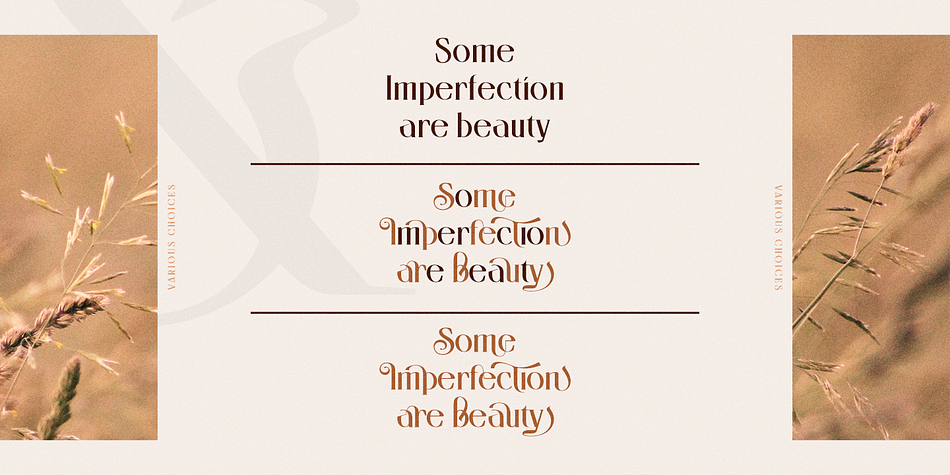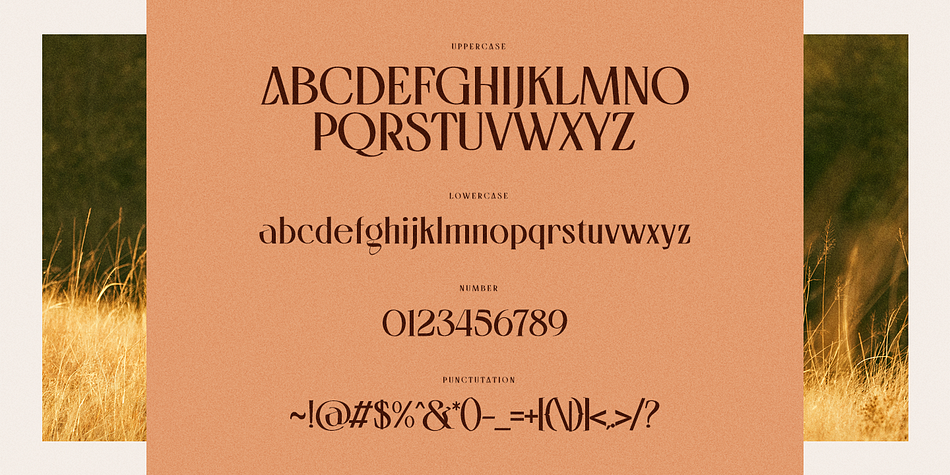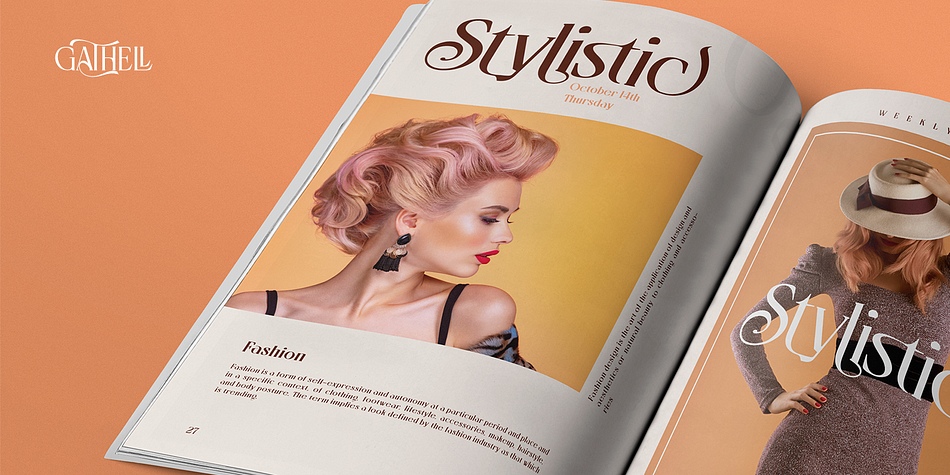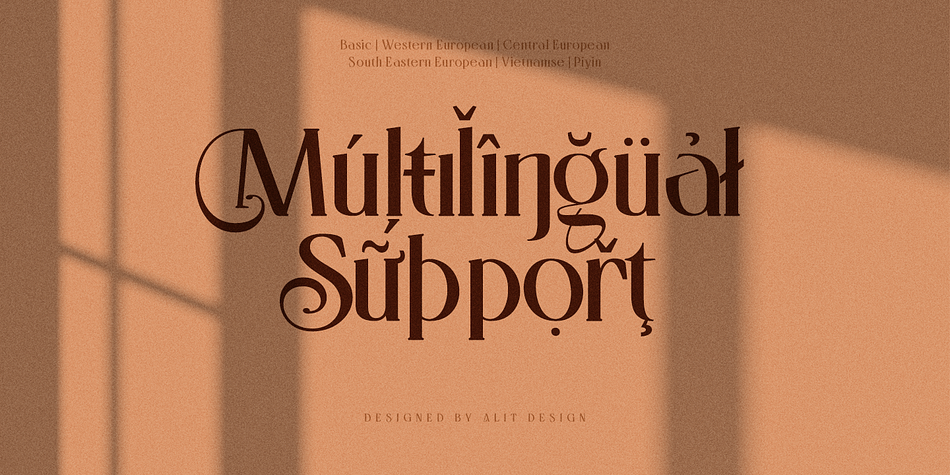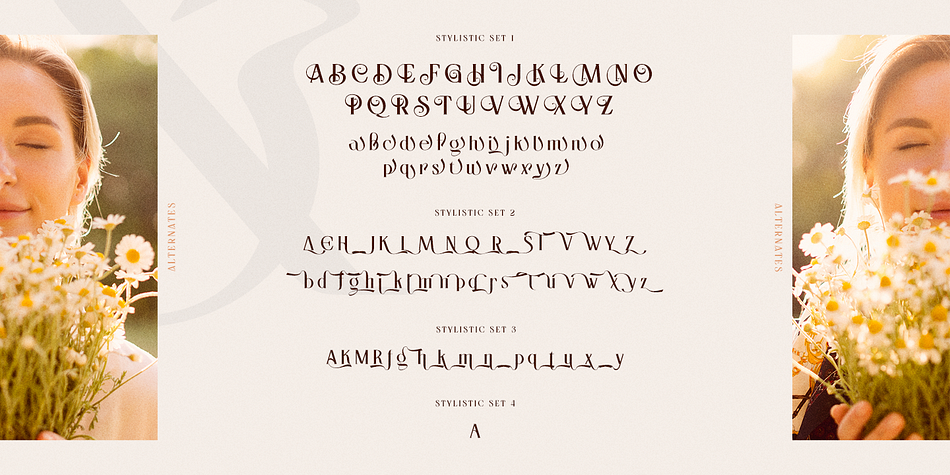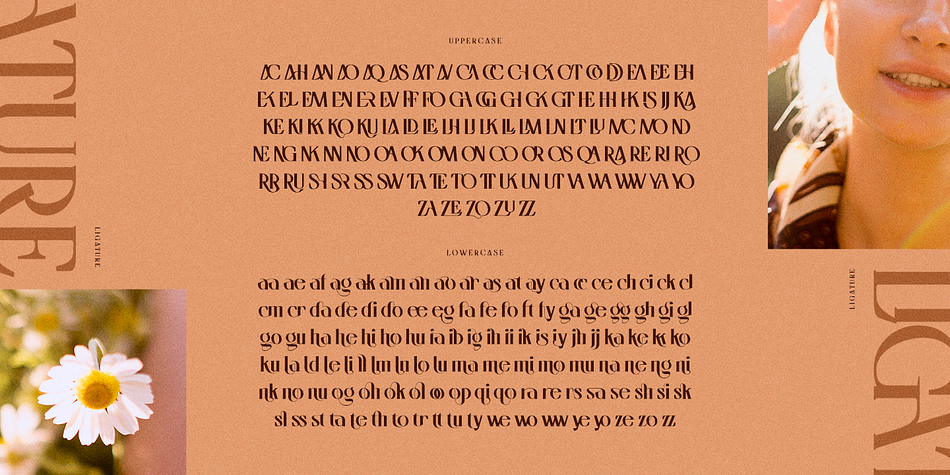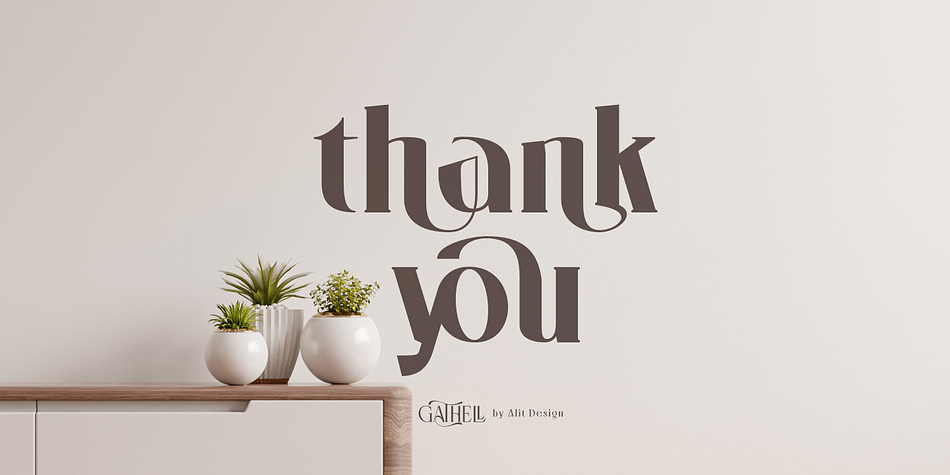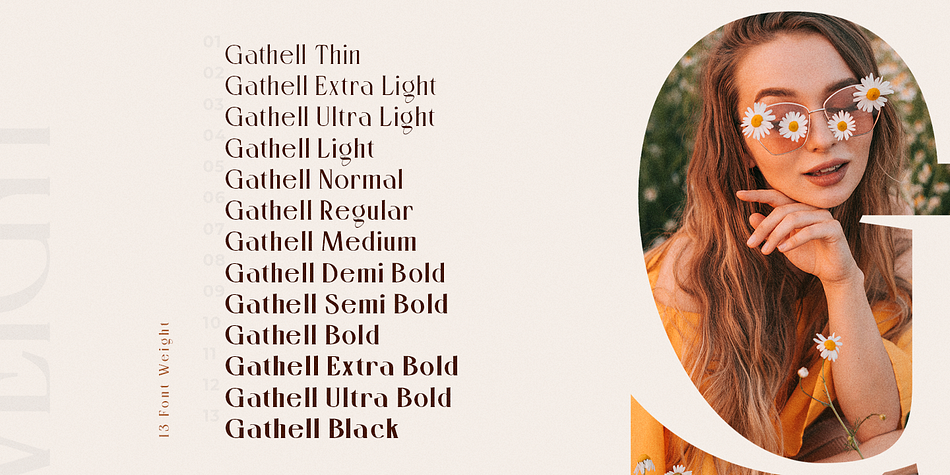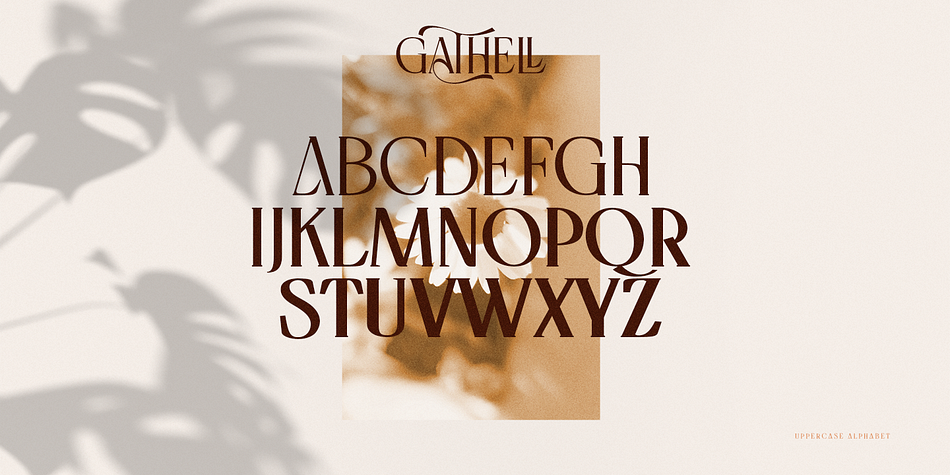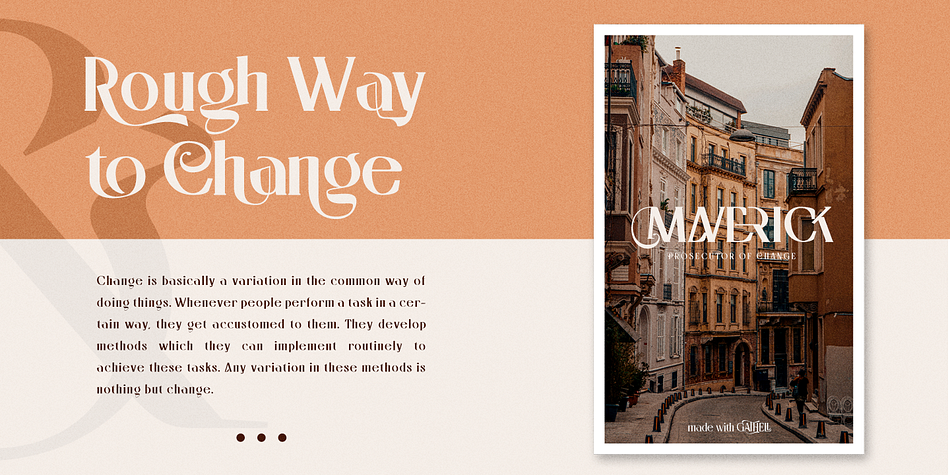
Designed by Alit Suarnegara, Gathell is a display serif font family. This typeface has thirteen styles and was published by Alit Design.
Introducing Gathell Typeface
GATHELL font family consists of 13 families, from Thin to Black style. The elegant modern font creates a unique design and is sure to steal the eye of the design target audience. Besides being unique, the GATHELL font also has a luxury simple character that makes the design charming and luxurious.
These a fonts are perfect for designs with the concept of elegant, luxury, romance, fashion and so on.